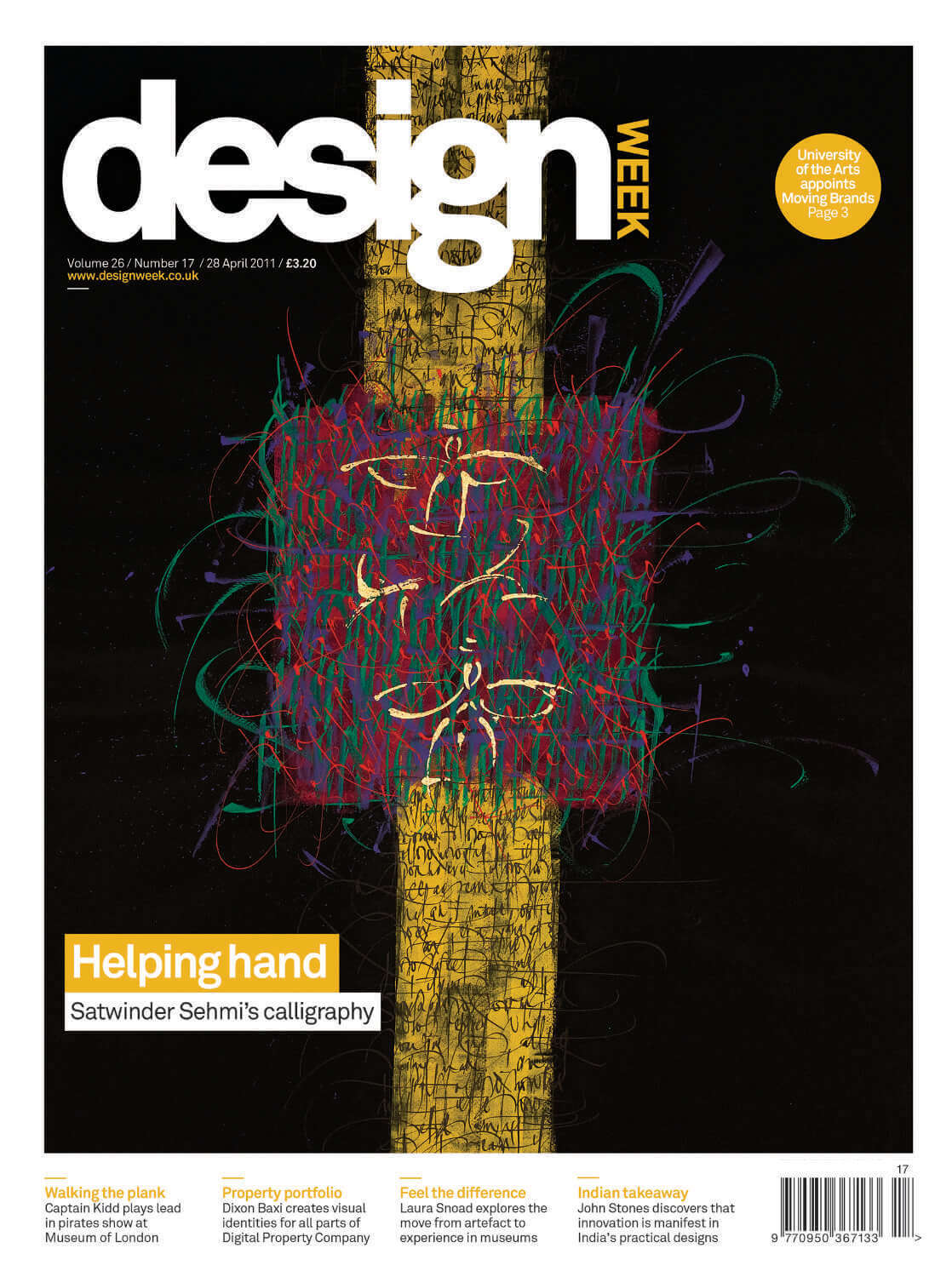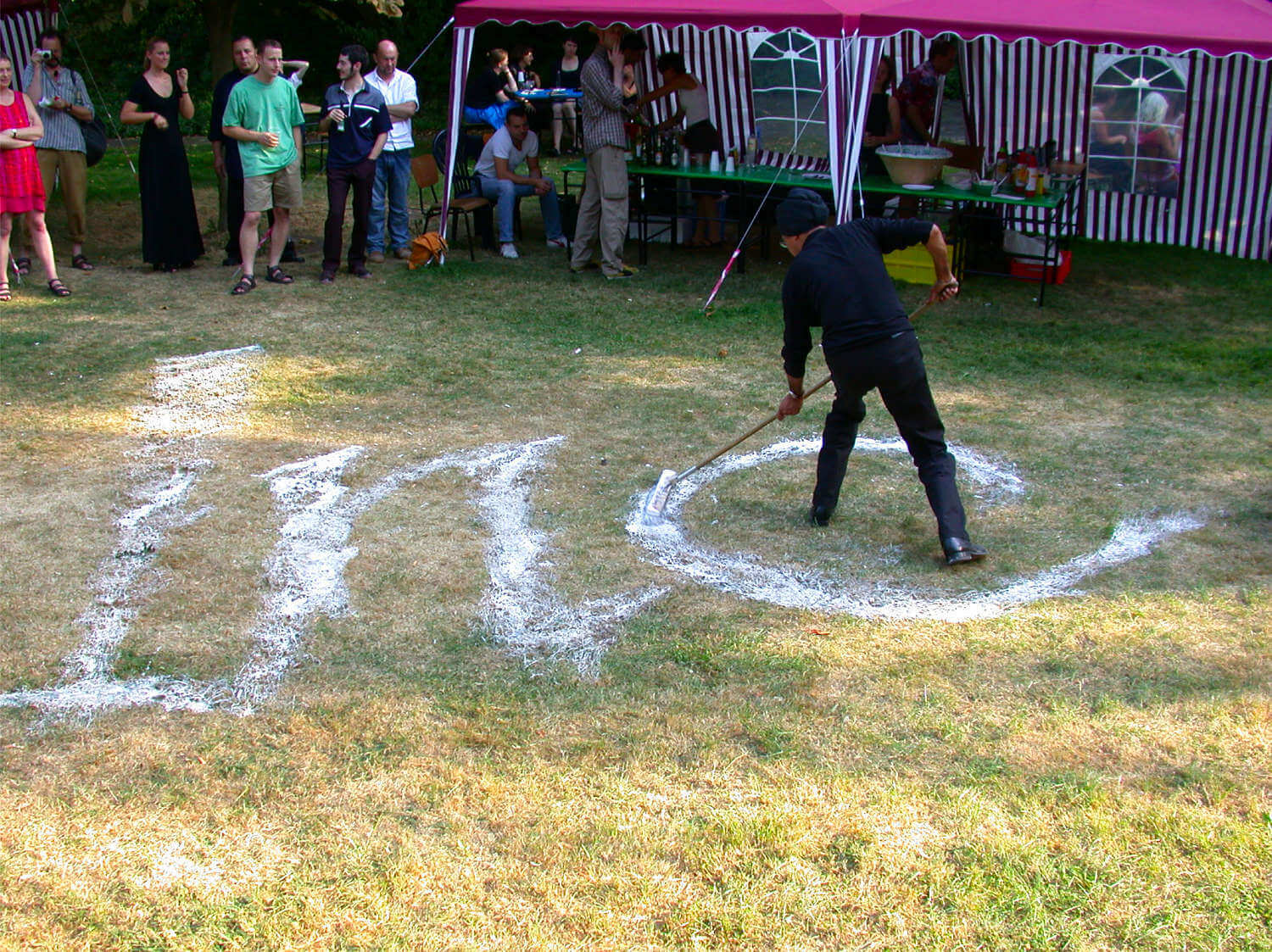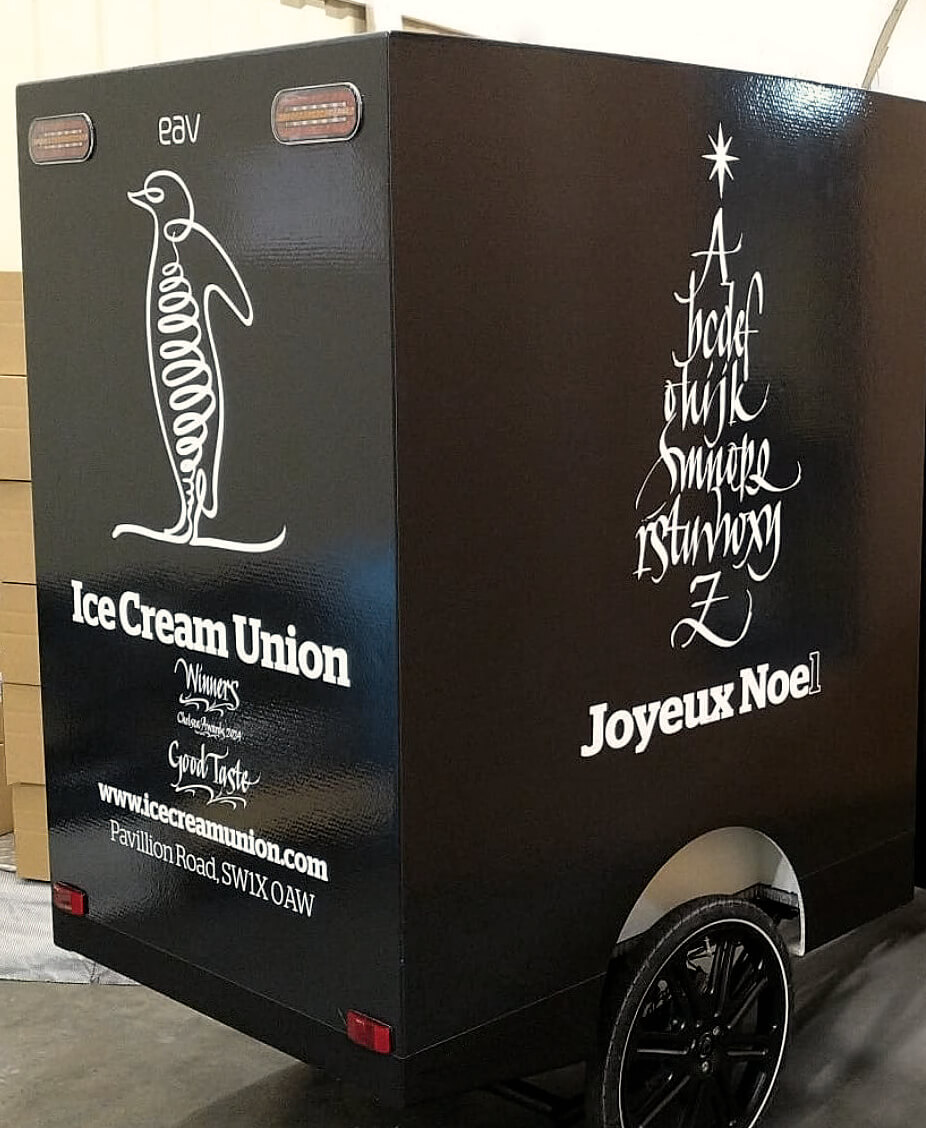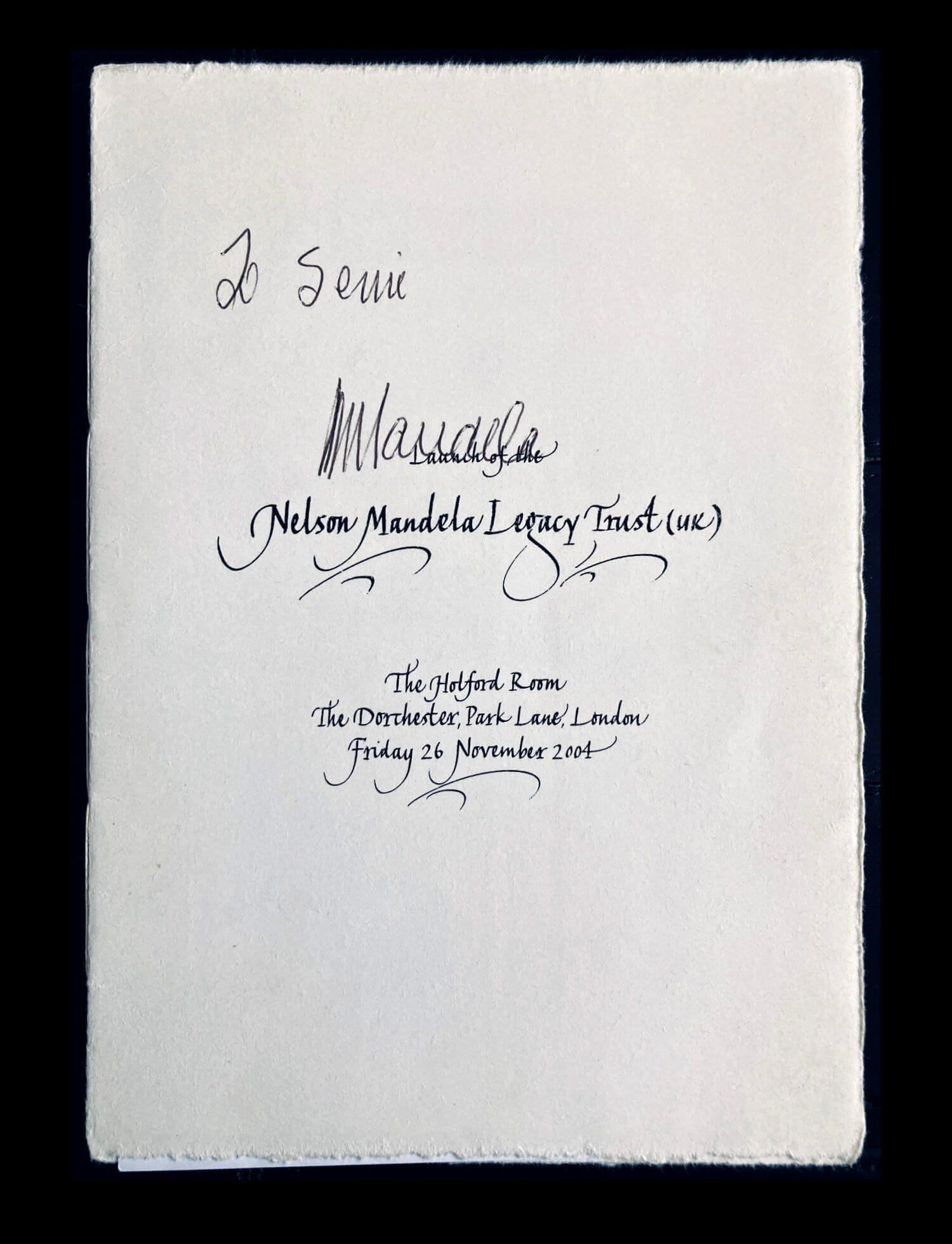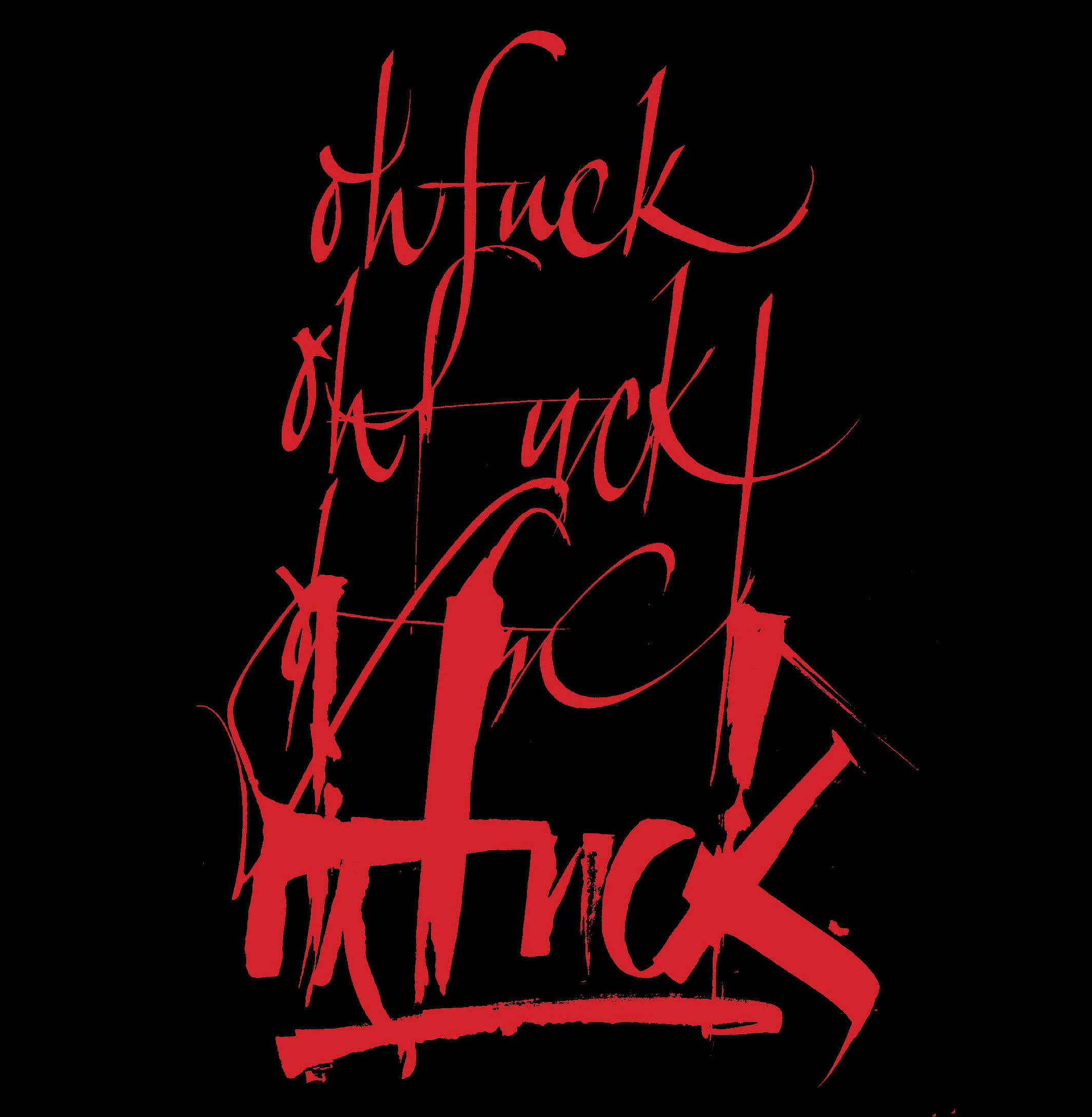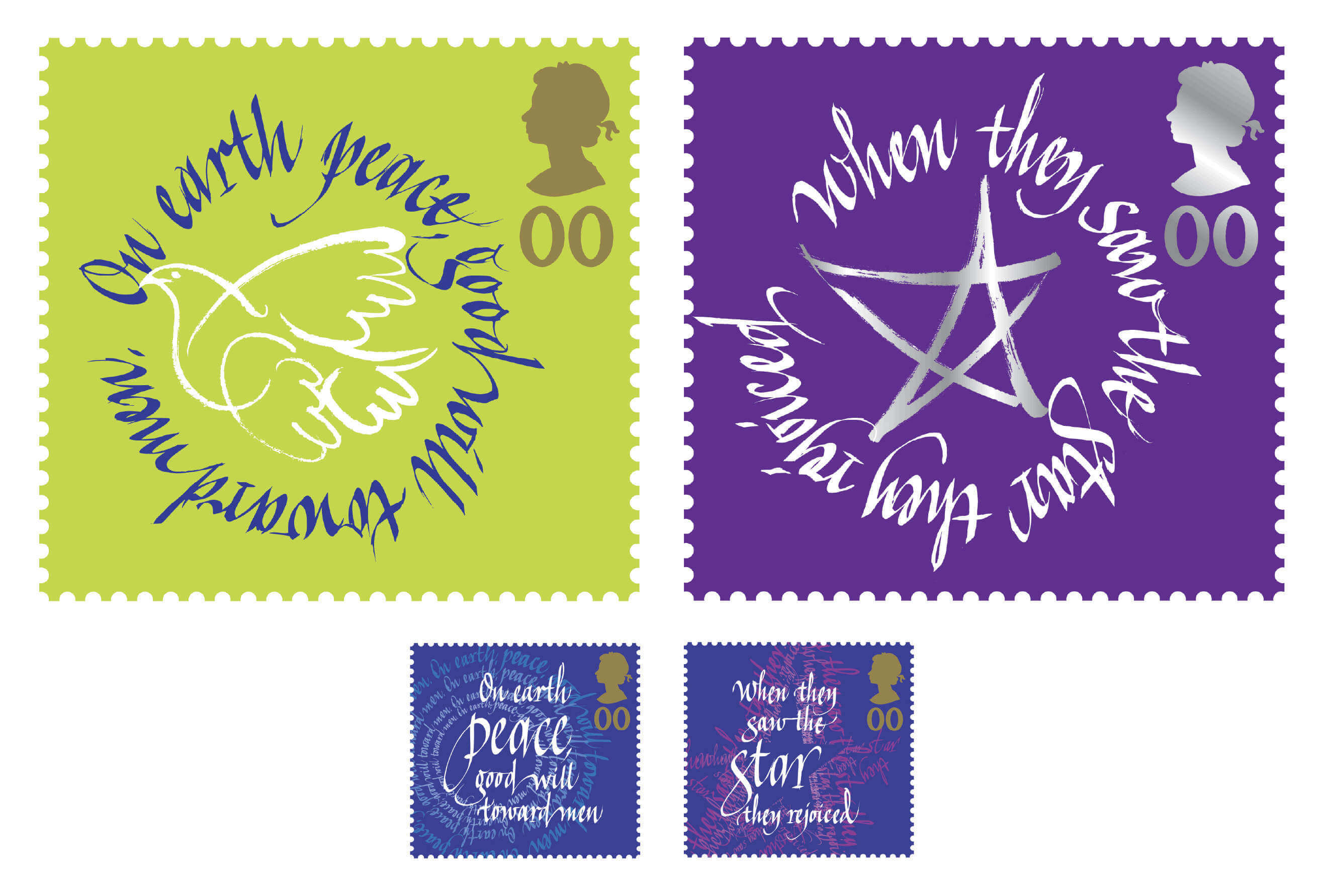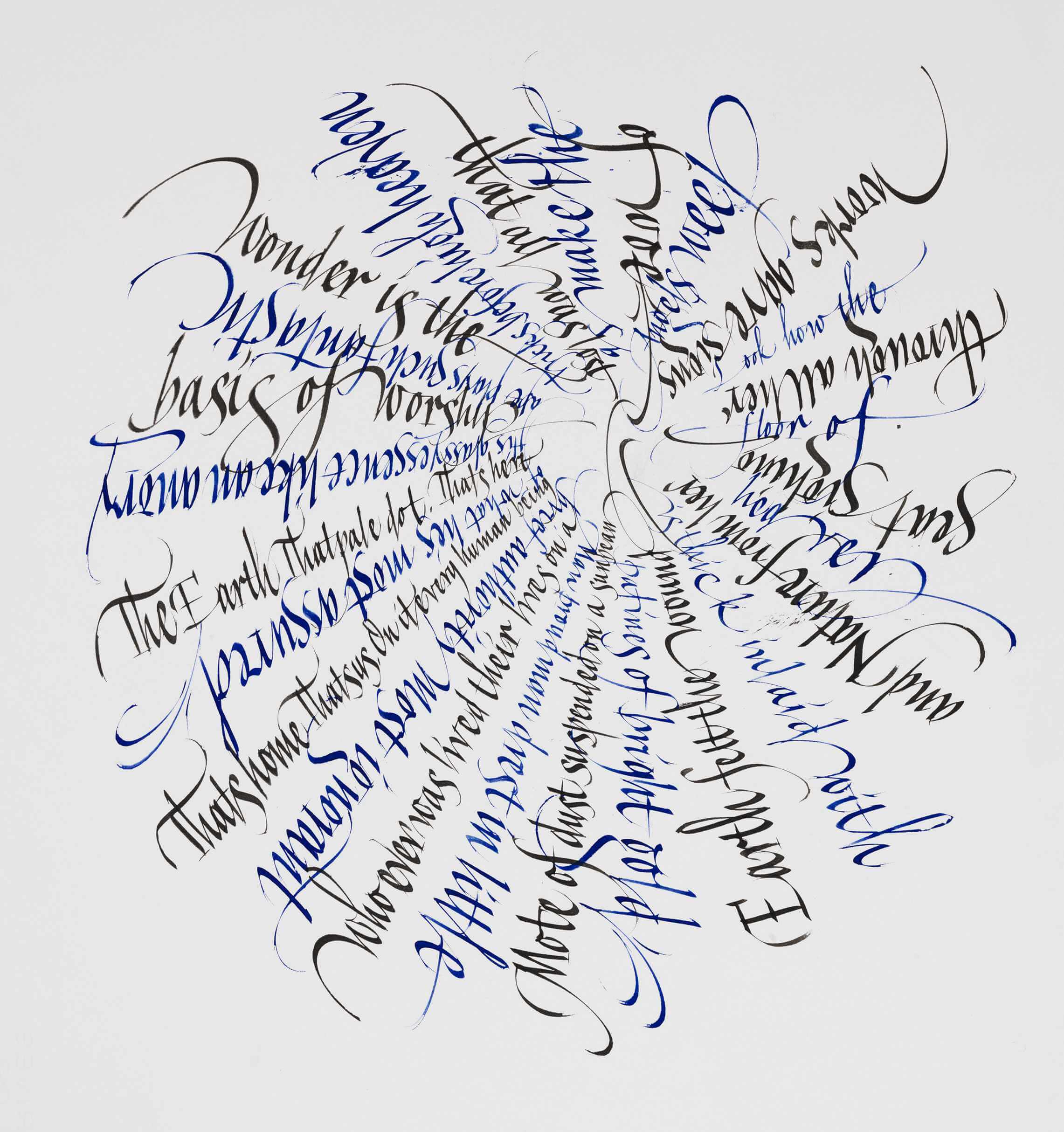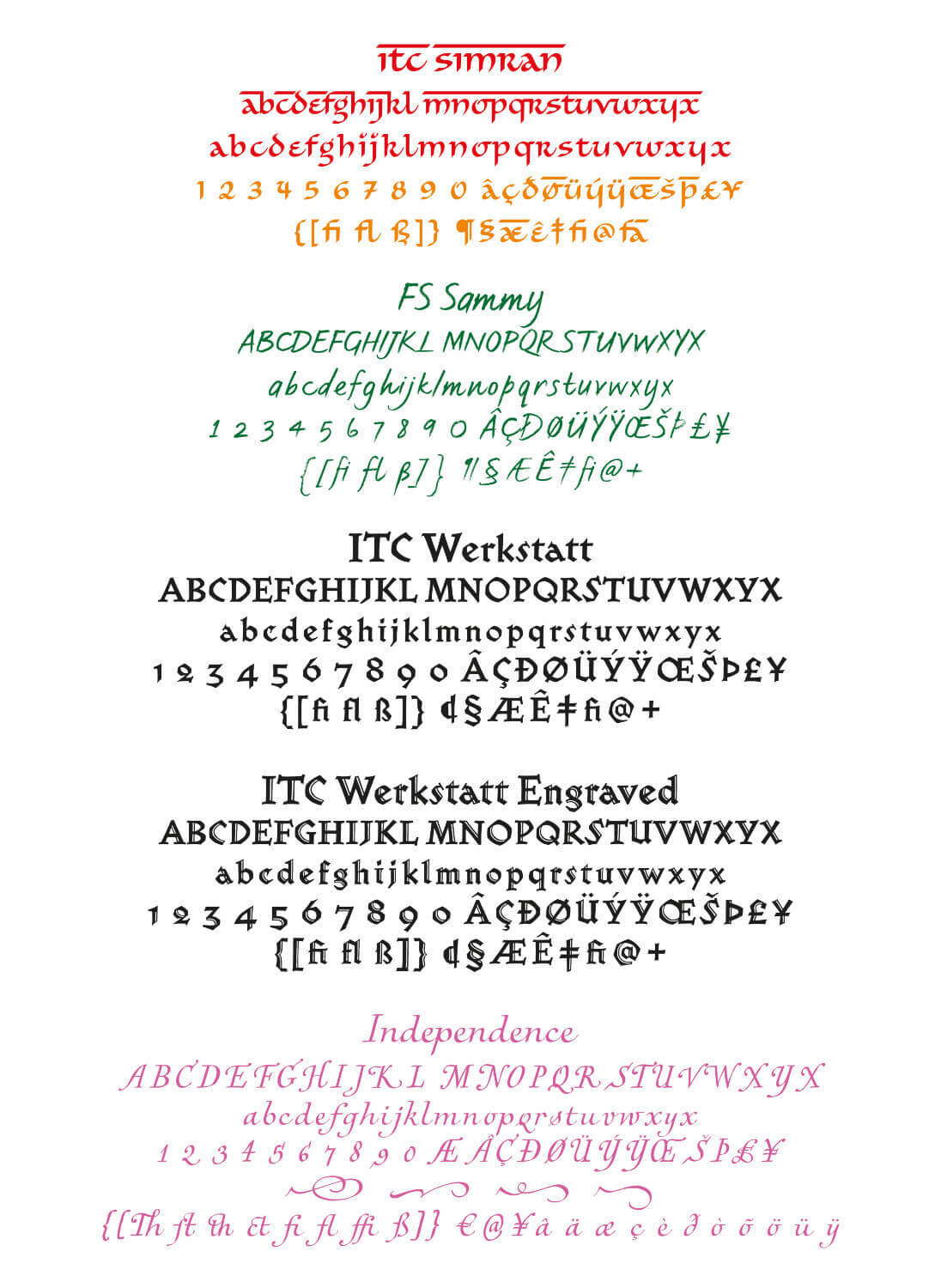
Striving for rhythm, spontaneity, expression, abstraction and precision based on discovery and understanding. I prefer to work the concept stage towards the result that evolves rather than just ‘finish or tidy up’ visuals handed to me. I enjoy the challenge of working with the written form or line to create solutions that will continue to stimulate.